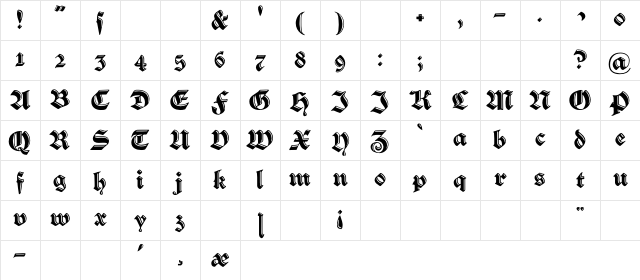
VerzierteSchwabacher Regular Free Font
VerzierteSchwabacher Regular
Designer: Verzierte Schwabacher
Design Context for VerzierteSchwabacher
VerzierteSchwabacher is a composed and adaptable typeface that performs quietly and consistently across a wide range of design contexts.